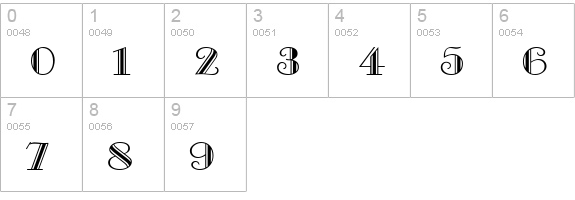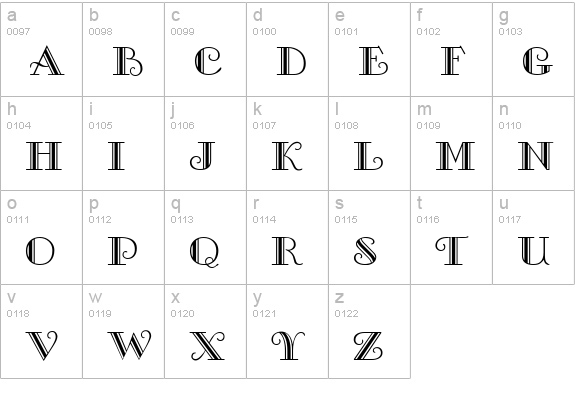
Introducing Gallery Caps, a beautifully crafted font that effortlessly combines elegance with a touch of whimsy. This exquisite typeface is perfect for adding a touch of sophistication to any project. With its intricate details and delicate curves, Gallery Caps exudes a sense of refined artistry that is sure to captivate your audience. But what makes Gallery Caps truly exceptional is that it is not only stunning, but also freely available to download at FontsMarket.com. That's right – this extraordinary font can be yours without spending a dime. Whether you're a graphic designer looking to add a unique flair to your creations or a business owner in need of a distinctive logo, Gallery Caps offers endless possibilities. Imagine the possibilities of using Gallery Caps in your next project. From invitations to branding materials, this versatile font can effortlessly elevate the aesthetic of any design. With its timeless appeal, Gallery Caps is sure to leave a lasting impression on your audience. Download Gallery Caps today from FontsMarket.com and unlock a world of creativity. Embrace the freedom to express yourself with this exquisite font and watch your designs come to life. Don't miss out on this opportunity to enhance your work with a font that is both visually striking and freely available. Get your hands on Gallery Caps now and let your imagination soar.